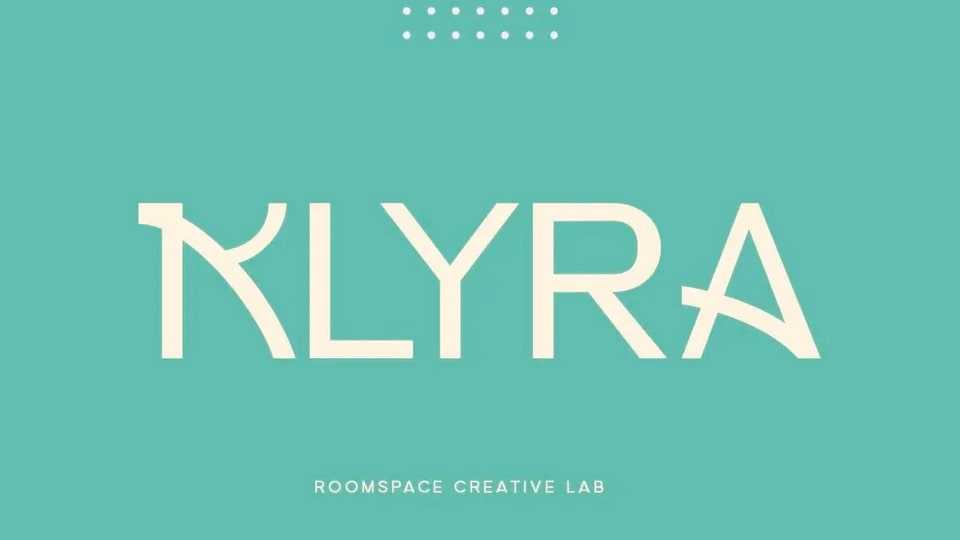
Download Klyra font, a modern sans serif typeface that embodies creativity and uniqueness. Klyra stands out with its meticulously crafted uppercase letters, each uniquely modified to harmonize beautifully with lowercase characters.